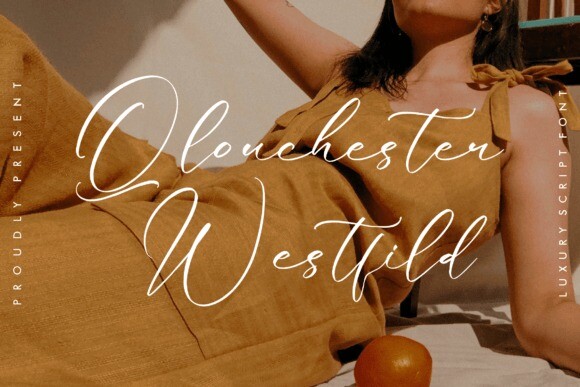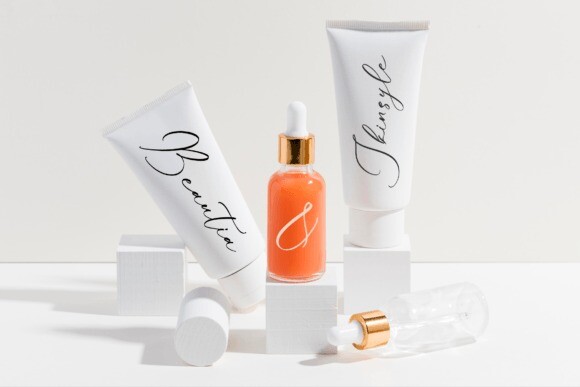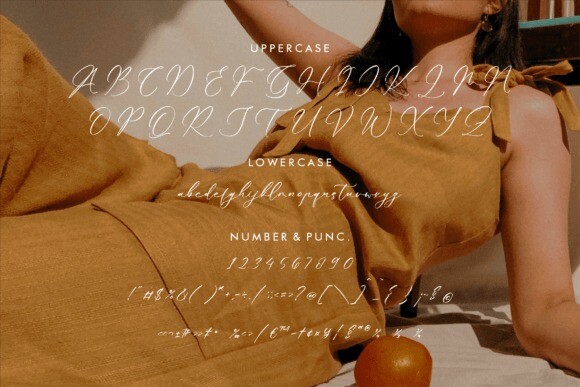
Qlouchester Westfild Font
Qlouchester Westfild Font, a bold and distinctive typeface that captures the essence of vintage charm and urban grit. With its rugged letterforms and unique character, Qlouchester Westfild Font adds a touch of edgy authenticity to your designs. Perfect for retro-inspired branding, urban-themed graphics, and gritty editorial layouts, this font embodies a sense of raw energy and urban allure. Let Qlouchester Westfild Font make a statement and set your designs apart with its distinctive personality.